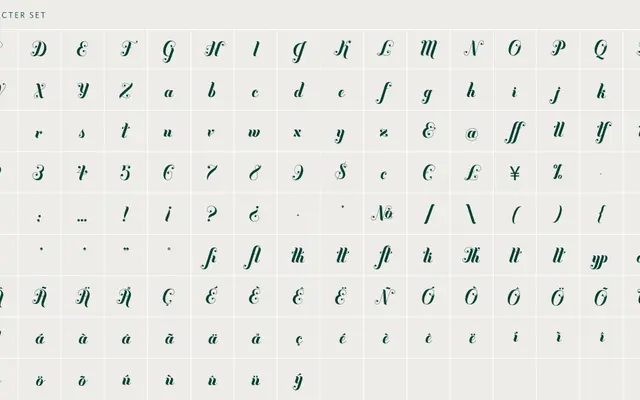
Buttermilk
Jessica Hische · 2008
Jessica Hische's debut typeface from 2008, a flowing casual script with a hand-lettered warmth suited to invitations and packaging.
Designed by Jessica Hische in 2008, Buttermilk is a single-weight casual script with lush, rounded letterforms typical of her signature lettering style. It has seen use across a wide range of applications, from wedding stationery to official Barbie holiday packaging. A single desktop and web licence covers most commercial needs, with tiered install options available.
A hand-lettered casual script with lush, flowing forms. Described by the designer as luscious and playful, placing it firmly in the casual script category rather than formal calligraphic scripts.